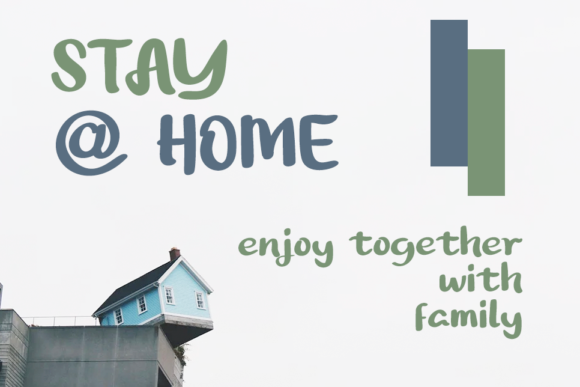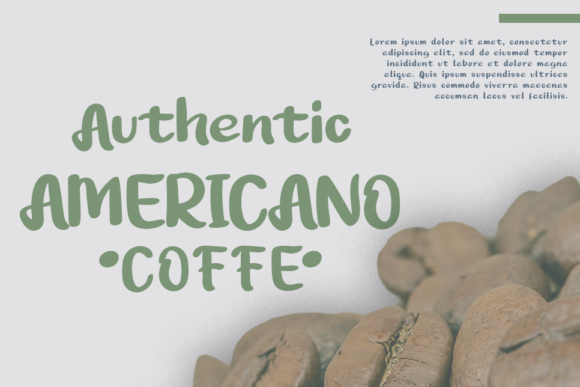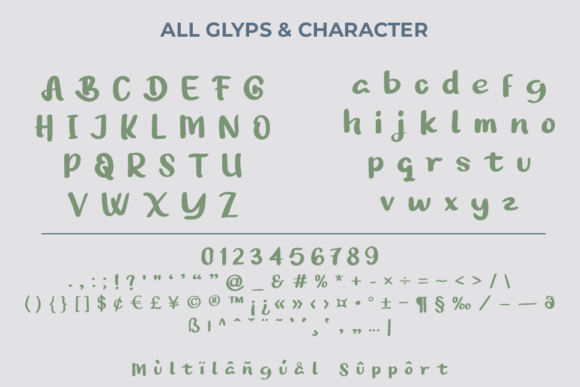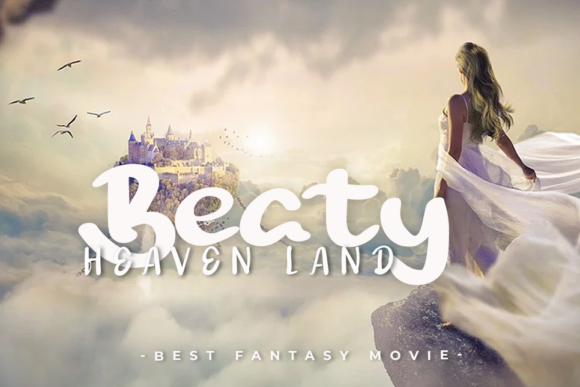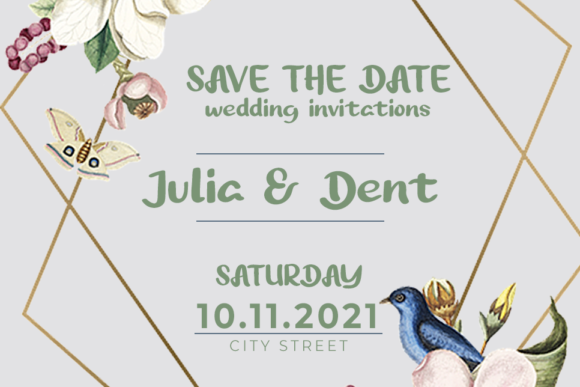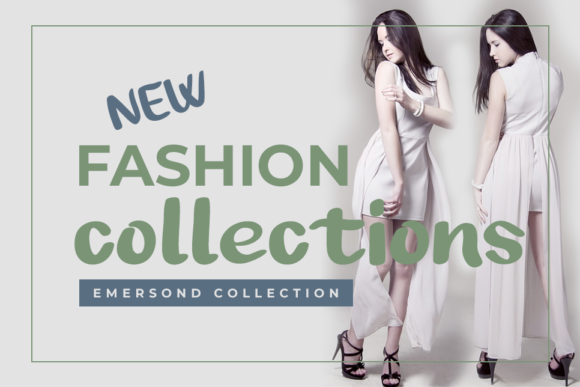
Introducing Brief Font: The Ultimate Bold Handwritten Font for Designers
Are you tired of using the same old fonts in your designs? Look no further than Brief Font, a bold handwritten font that’s sure to become a true favorite in your collection. With its casual charm and down-to-earth feel, Brief is the perfect choice for designers and crafters looking to add a personal touch to their work.
The Story Behind Brief Font
Brief Font is a carefully handcrafted font, designed to bring a sense of warmth and approachability to your designs. Its unique, handwritten style makes it stand out from more traditional fonts, while its bold and readable nature ensures that it will be easily understood by your audience. Whether you’re working on a busy background or using it as a standalone headline, Brief Font is sure to make a statement.
What Makes Brief Font So Special?
So, what sets Brief Font apart from other fonts on the market? Here are just a few of its standout features:
- Bold and Readable: Brief Font is designed to be easily readable, even at smaller sizes. Its bold nature ensures that it will grab attention and hold it, making it perfect for headlines, titles, and other applications where you want to make a statement.
- Casual Charm: Brief Font has a wonderfully down-to-earth feel, making it perfect for designs that need to feel approachable and relatable. Its casual charm will help you connect with your audience and create a sense of warmth and personality in your work.
- Versatile: Brief Font is incredibly versatile, and can be used in a wide range of contexts. Whether you’re working on a digital project, a print design, or even a craft project, Brief Font is sure to be a great choice.
Using Brief Font in Your Designs
So, how can you use Brief Font in your designs? Here are a few ideas to get you started:
- Headlines and Titles: Brief Font is perfect for headlines and titles, where its bold and readable nature can really shine. Use it to grab attention and draw your audience in.
- Body Text: While Brief Font is bold, it’s also surprisingly readable. Use it for body text to add a personal touch to your designs and create a sense of warmth and approachability.
- Busy Backgrounds: Brief Font is designed to stand out, even on busy backgrounds. Use it to add a pop of personality to your designs and create visual interest.
- Craft Projects: Brief Font is also perfect for craft projects, such as handmade cards, gift tags, and other paper crafts. Its bold and playful nature makes it a great choice for adding a personal touch to your creations.
Tips and Tricks for Working with Brief Font
Here are a few tips and tricks to help you get the most out of Brief Font:
- Experiment with Colors: Brief Font looks great in a wide range of colors, so don’t be afraid to experiment and find the perfect hue for your design.
- Play with Size: Brief Font is designed to be readable at a wide range of sizes, so feel free to experiment with different sizes to find the one that works best for your design.
- Combine with Other Fonts: Brief Font pairs well with a wide range of other fonts, so don’t be afraid to combine it with other fonts to create a unique and interesting look.
Brief Font is a bold handwritten font that’s sure to become a true favorite in your collection. With its casual charm, bold and readable nature, and versatility, it’s the perfect choice for designers and crafters looking to add a personal touch to their work. Whether you’re working on a digital project, a print design, or even a craft project, Brief Font is sure to make a statement. So why not give it a try and see the difference it can make in your designs?